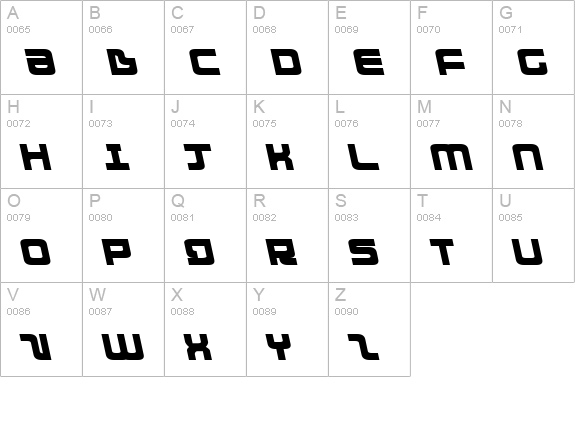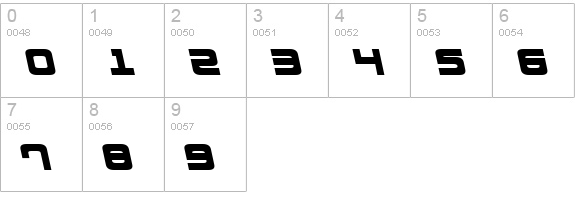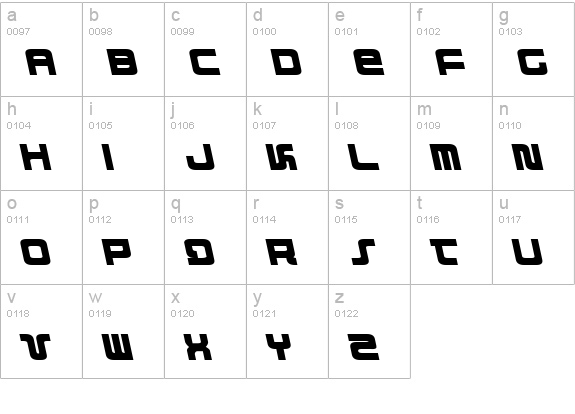
Direktor Leftalic font is a sleek and modern typeface that exudes sophistication and style. Its elegant slanted design adds a touch of flair to any project, making it perfect for branding, headlines, and more. The clean lines and unique character shapes of Direktor Leftalic make it stand out from the crowd, giving your designs a professional and polished look. What's even better is that Direktor Leftalic font is available for free download at FontsMarket.com. This means you can easily access this high-quality font without any cost, making it a valuable addition to your font collection. Whether you're a designer looking to elevate your projects or a business owner wanting to make a statement, Direktor Leftalic font is the perfect choice for adding a touch of sophistication to your work.